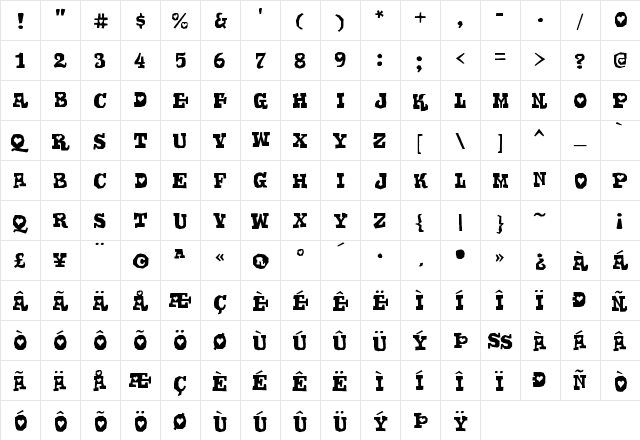
Gomoku Rg Regular
Design Context for Gomoku Rg Typeface
Gomoku Rg is a composed and adaptable typeface that performs quietly and consistently across a wide range of design contexts.